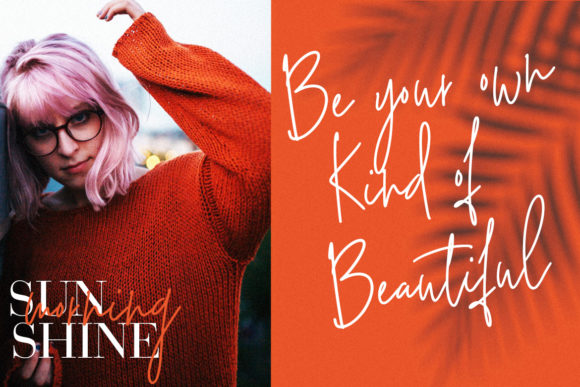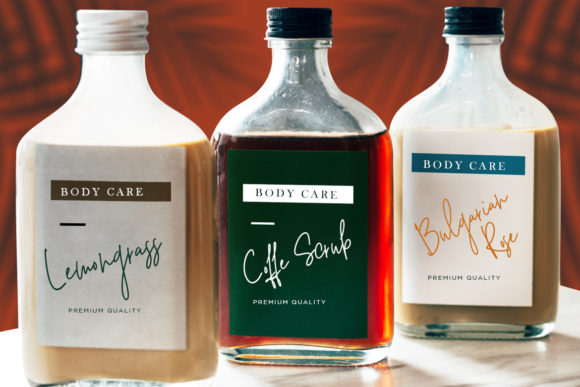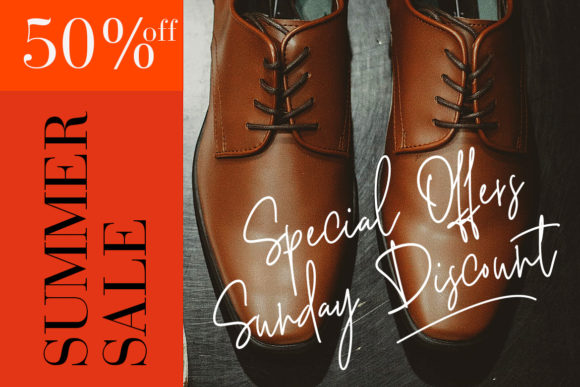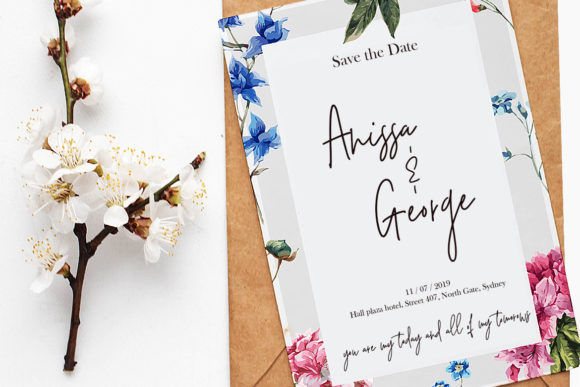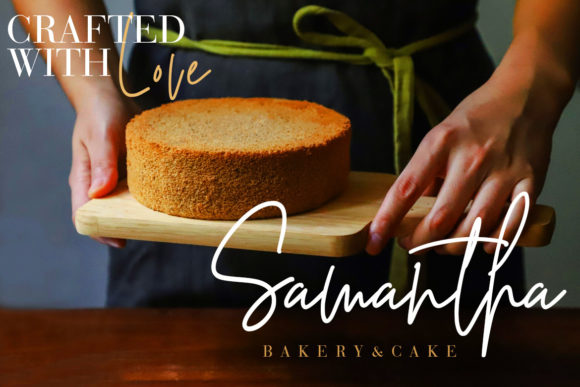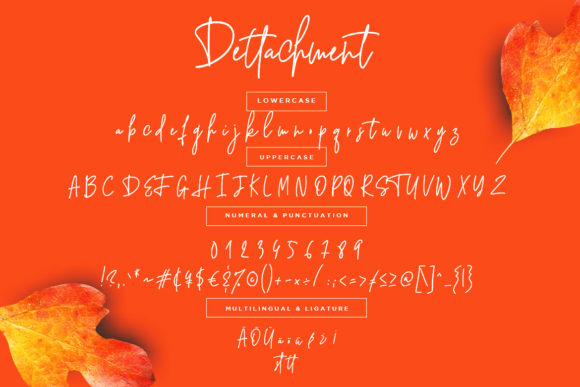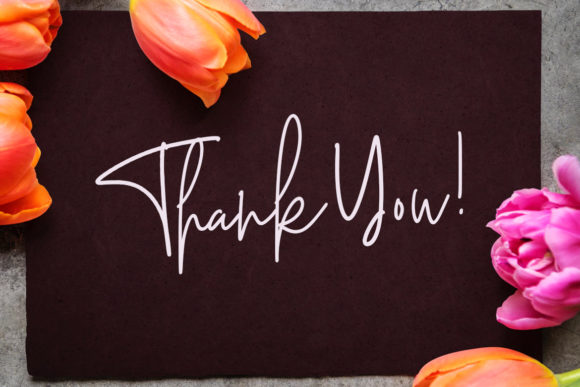
Dettachment Font
About Dettachment Font
Dettachment is a personal and cool handwritten font with a unique style. Use it to add a raw and organic feel to any design!